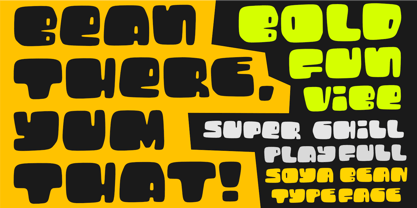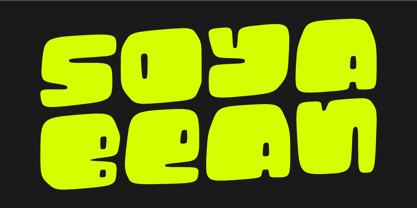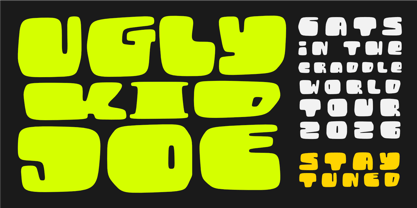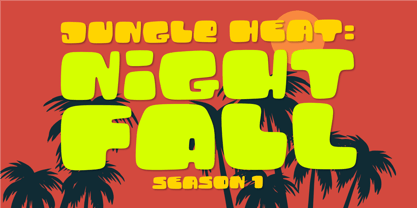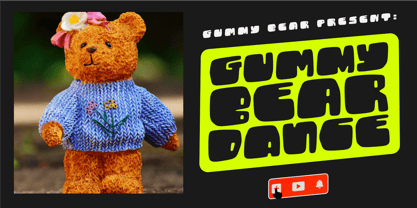
Soya Bean
von Epiclinez
Die Schriftfamilie Soya Bean wurde von Aldy Sidik entworfen und von Epiclinez veröffentlicht. Soya Bean enthält 1 Stile. Mehr über diese Familie
Soya Bean is a cute, fun, and playful bold cartoon-style font packed with bouncy energy and sweet personality. Inspired by chubby gummy shapes and cheerful bean vibes, this font features rounded forms, soft curves, and bold strokes that instantly grab attention. Perfect for gaming titles, animated movies, kids content, YouTube thumbnails, branding, snack packaging, logos, posters, stickers, and social media, Soya Bean brings joy and friendliness to every design. Its chunky letterforms make it highly readable while keeping a super-fun, youthful look that works great for both digital and print projects. Whether you’re designing a game logo, cartoon headline, playful brand identity, or colorful movie title, Soya Bean delivers bold fun with adorable charm.
Designer: Aldy Sidik
Foundry: Epiclinez